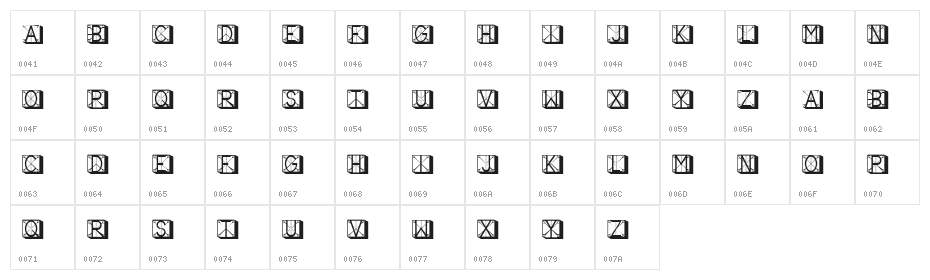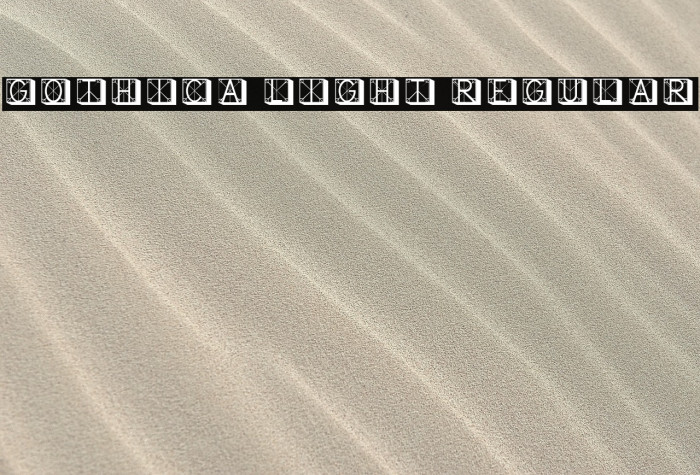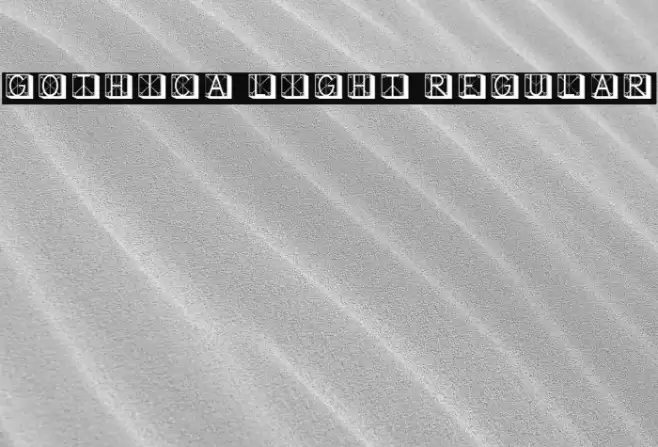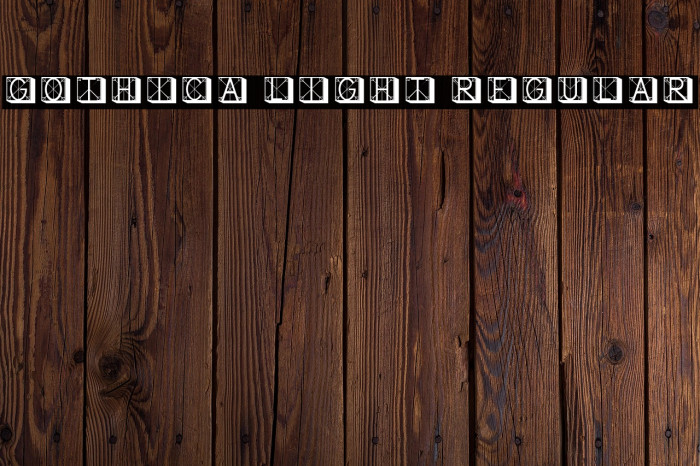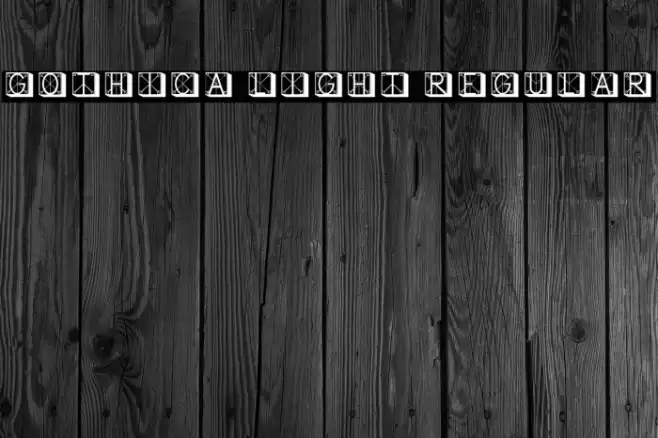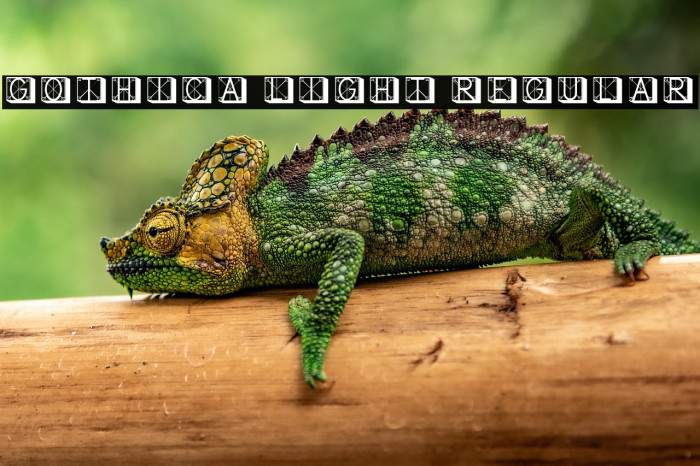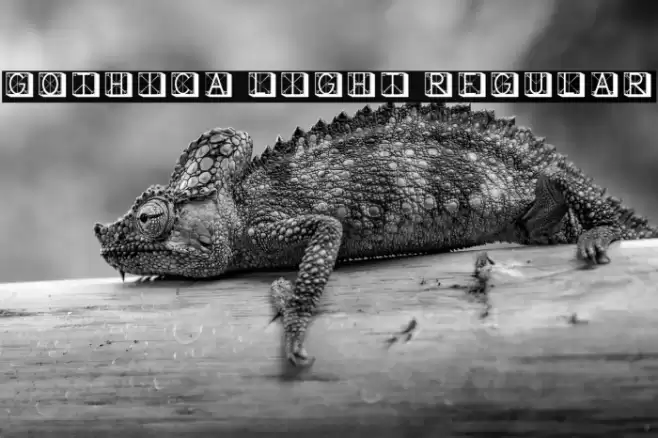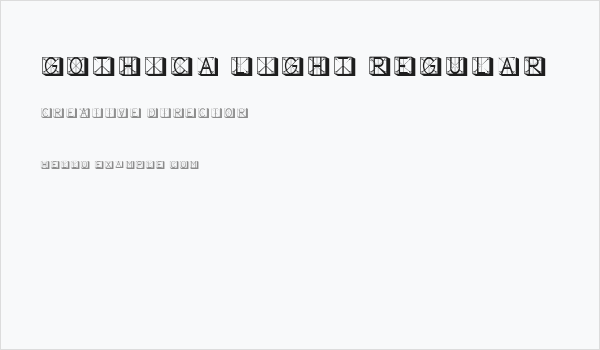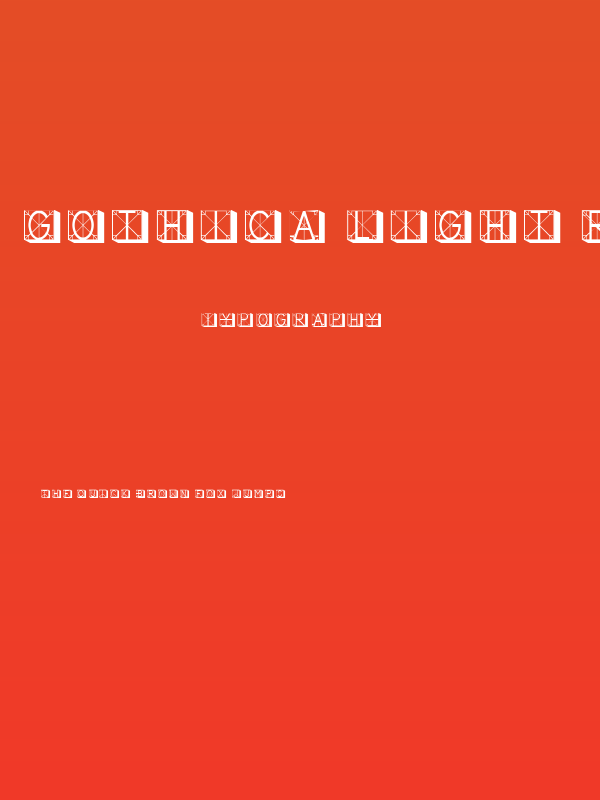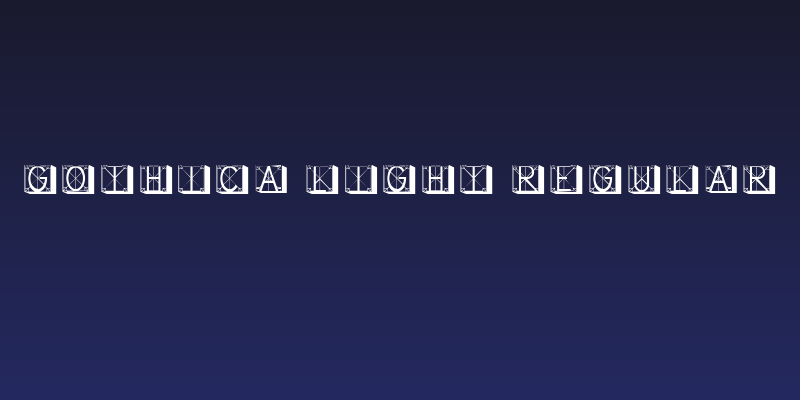
Gothica Light Regular Font
Gothica Light Regular Description
This font features a unique decorative style with a geometric and artistic flair. Each character is enclosed within a square frame, creating a striking visual impact. The letters are constructed with a combination of thin and thick lines, forming intricate patterns that resemble architectural designs. The overall appearance is bold and eye-catching, making it suitable for creative and artistic projects. The font's structure is consistent across all characters, providing a cohesive and harmonious look.
| Proposed Projects | Ideal for posters, album covers, branding, and any project requiring a bold, artistic statement. |